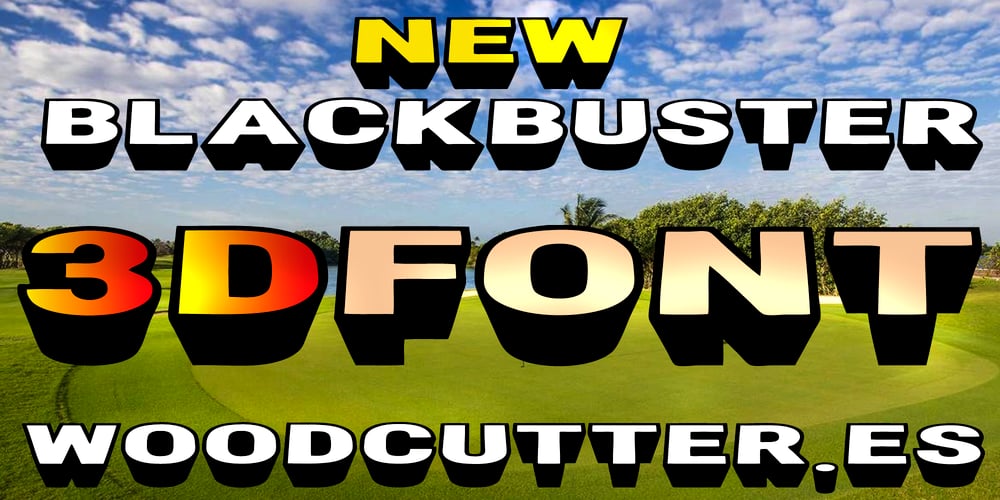
New Blackbuster Font Family was designed by Jordi Manero and published by Woodcutter. New Blackbuster contains 1 styles and family package options. “New Blackbuster” is a font that redefines three-dimensionality with a unique and distorted style. The letters, featuring shadows at their base, create a deep and dynamic visual impression. Some letters are inverted, adding a touch of controlled chaos that catches the eye and challenges conventional perception. This font is ideal for titles and designs that seek to stand out with a strong and contemporary visual impact. With its blend of distortion and depth, “New Blackbuster” brings bold and creative character to any graphic project.